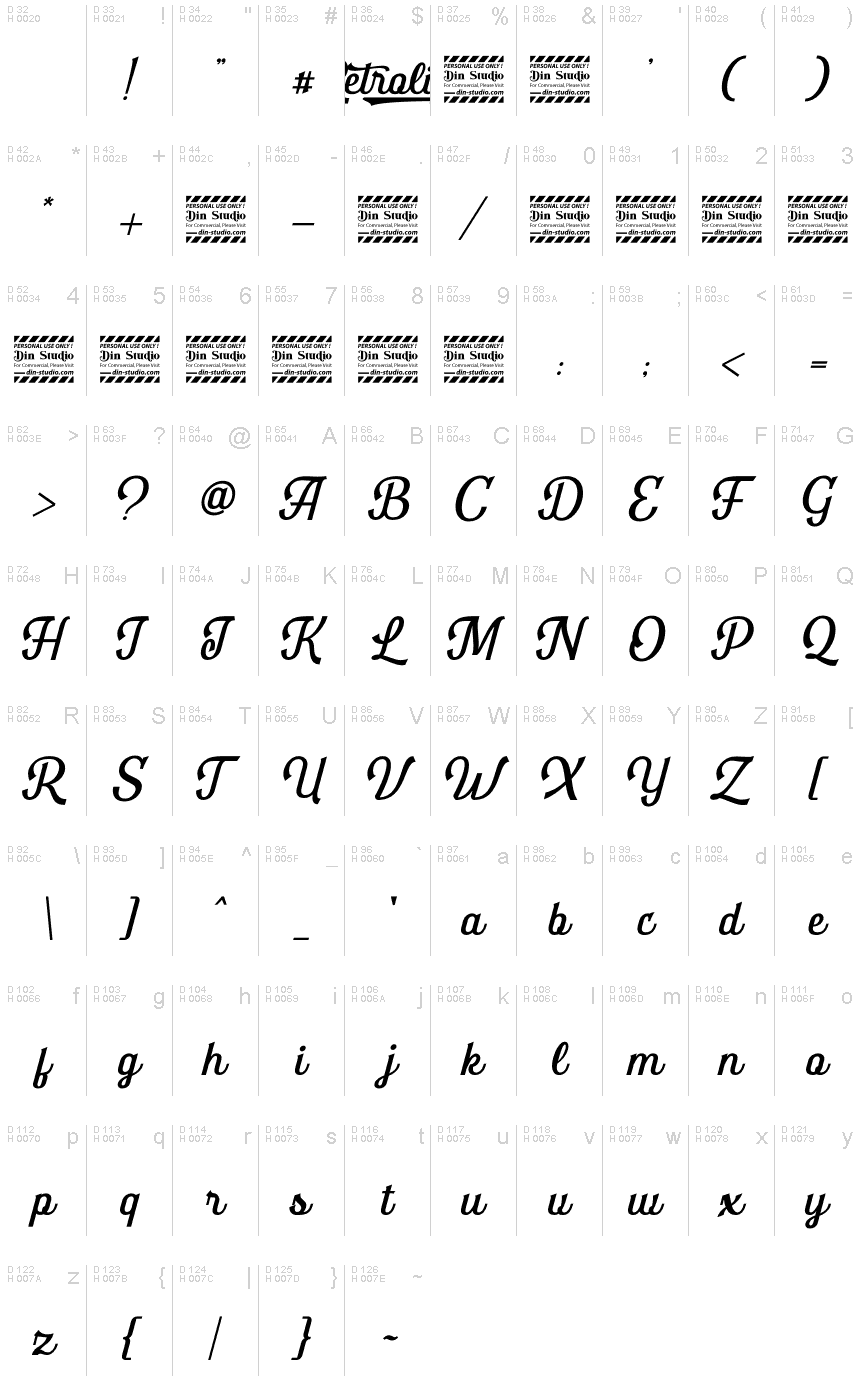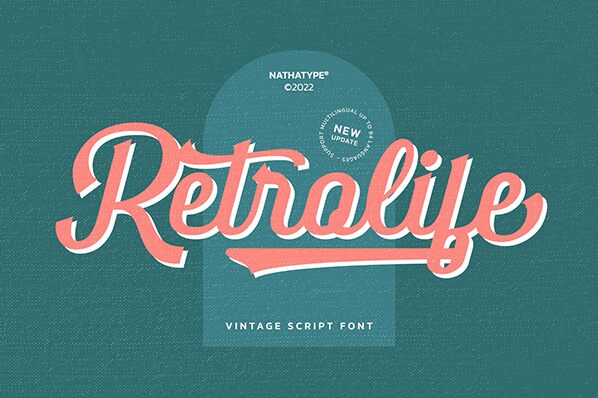
Retrolife Personal Use
Retrolife, the captivating retro script font by Din Studio, takes you on a delightful journey back in time. With its elegant curves and bold strokes, this font effortlessly captures the essence of vintage aesthetics. Perfect for branding projects seeking a touch of nostalgia, Retrolife adds a charming twist to logos, packaging designs, and signage. Its versatile semi-bold font style lends itself beautifully to various creative endeavors such as poster designs, album covers, and social media graphics. Let Retrolife transport you to an era of timeless elegance and bring your projects to life with its nostalgic allure.